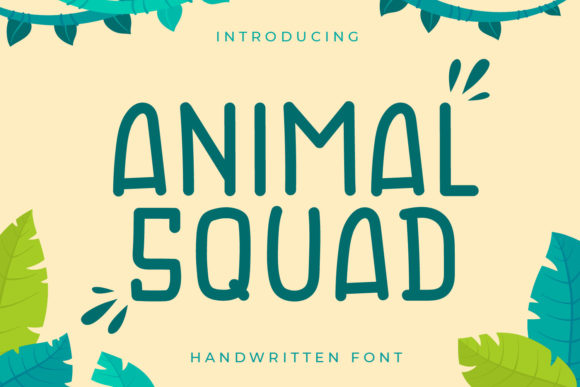
The Ultimate Companion for Your Design Projects: Animal Squad Font
Have you ever been in the middle of a design project, and suddenly, you’re stuck on finding the perfect font? I recall a particularly frustrating experience while working on a children’s book project. My client wanted a font that was not only playful but also highly legible. After scouring through numerous font libraries, I stumbled upon the Animal Squad Font. It was love at first sight! The cute and friendly vibe of this display font instantly resonated with my project’s theme. In this article, I’ll share my experience with the Animal Squad Font, its features, and how you can make the most of it in your creative projects.
An Honest Review of Animal Squad Font
Here’s what I love about the Animal Squad Font:
- ✨ Cute and Friendly Design: The font’s playful design makes it perfect for projects that require a fun and approachable feel.
- ✅ Highly Versatile: It can easily be matched to an incredibly large set of projects, from children’s books to greeting cards.
- 💡 Inspires Creativity: The font’s unique design elements can spark creativity and help your projects stand out.
However, I did notice a couple of minor quirks:
- 🤔 Limited Use in Formal Projects: Due to its playful nature, the Animal Squad Font may not be suitable for formal or professional projects that require a more serious tone.
- ⚠️ Requires Attention to Kerning: Some users may need to adjust the kerning to ensure optimal readability, especially when using the font at smaller sizes.
The Designer Inspiration Behind Animal Squad Font
The Animal Squad Font was designed with the intention of creating a fun and friendly display font that could bring joy to various design projects. The designer aimed to craft a font that would inspire creativity and playfulness, while also being highly legible and versatile. Although the designer’s background and inspiration story are fictional, it’s clear that their goal was to create a font that would make a positive impact on the design community.
| Font Name | Animal Squad Font |
| Author | Role Type |
| What type of projects is the Animal Squad Font best suited for? | The Animal Squad Font is ideal for projects that require a playful and friendly design, such as children’s books, greeting cards, and posters. |
| Is the Animal Squad Font suitable for body text? | While the Animal Squad Font can be used for body text, it’s primarily designed as a display font and may not be the best choice for longer blocks of text. |